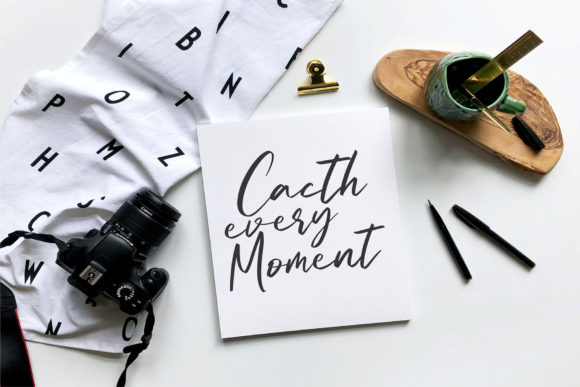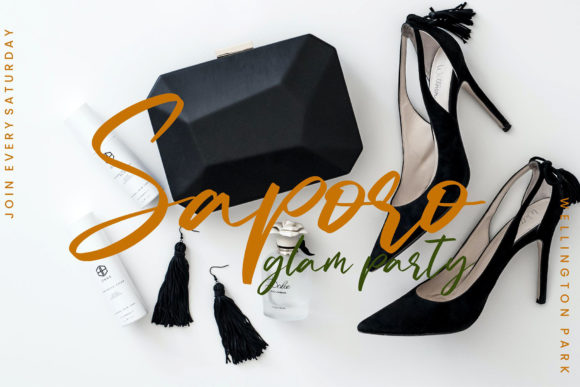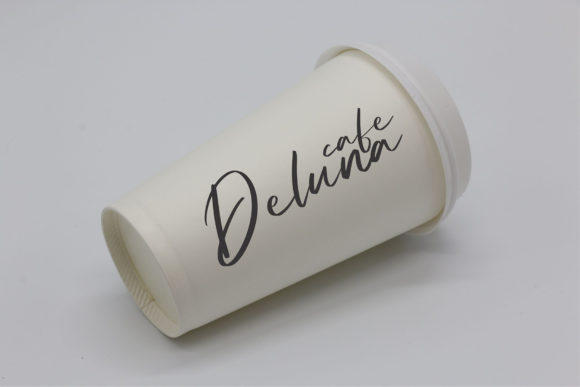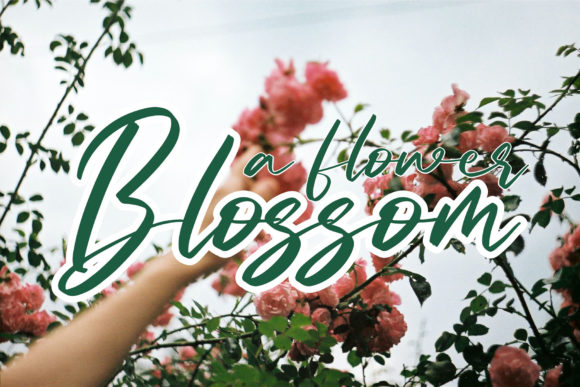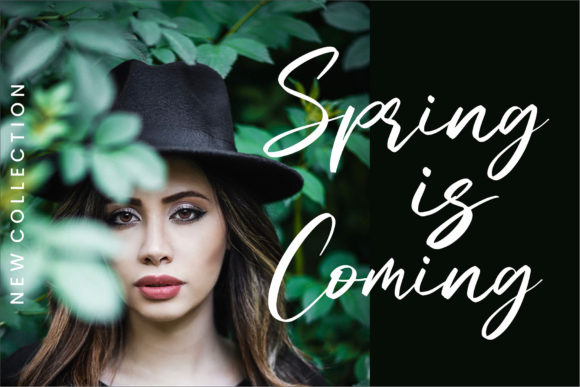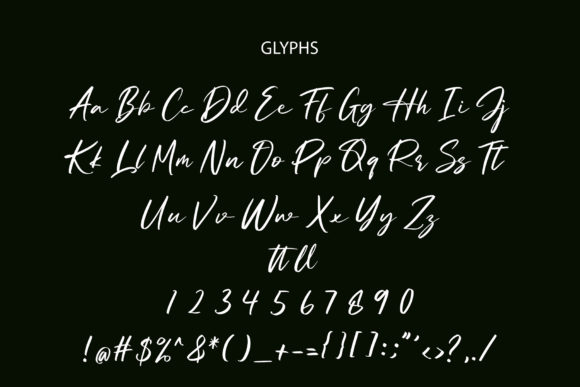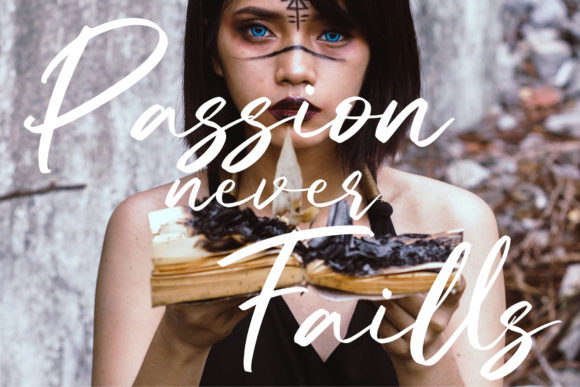
Caspiand Font
About Caspiand Font
Caspiand is a modern and elegant handwritten font that captivates with its versatile style. Whether you’re designing wedding invitations, creating beautiful stationery art, or crafting eye-catching social media posts, Caspiand is the perfect choice to add a touch of sophistication and charm to your designs.
With its fluid strokes and carefully crafted letterforms, Caspiand exudes a sense of contemporary elegance. Its clean and legible style makes it suitable for a wide range of design projects, from formal occasions to creative endeavors. The balanced proportions of the letters ensure readability while maintaining a sense of artistic flair.
The versatility of Caspiand allows it to adapt effortlessly to various design contexts. Whether you’re creating wedding invitations for a romantic celebration or designing a logo for a modern brand, Caspiand adds a refined and personal touch. Its sophisticated appearance elevates any design, making it visually appealing and engaging.
One of the key features of Caspiand is its ability to evoke emotions and create a sense of connection. The smooth curves and gentle brush-like strokes bring a sense of warmth and intimacy to your designs, making them resonate with your audience. Whether you’re expressing heartfelt messages or conveying a brand’s story, Caspiand helps you communicate with authenticity and style.
Caspiand is not only visually pleasing but also practical to work with. Its PUA encoding ensures easy access to all the glyphs and swashes, allowing you to add decorative elements and flourishes effortlessly. This means you can customize and personalize your designs, tailoring them to suit your specific needs and preferences.
From wedding stationery to social media graphics, Caspiand shines in various design applications. Its versatility allows you to explore different creative possibilities and experiment with different layouts and color palettes. Whether you’re designing for print or digital platforms, Caspiand delivers stunning results.
In conclusion, Caspiand is a modern and versatile handwritten font that brings an element of sophistication and charm to your designs. Its clean and legible style, combined with its PUA encoding for easy access to glyphs and swashes, makes it a valuable asset for creating stunning wedding invitations, beautiful stationery art, eye-catching social media posts, and much more. Fall in love with Caspiand and unleash your creativity to create gorgeous designs that leave a lasting impression.